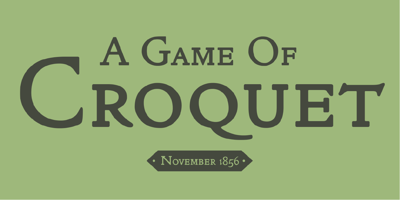
HV Simplicite Font is perfect for minimalist branding projects, clean web design interfaces, modern packaging solutions, contemporary corporate communications, simplified logo designs, editorial layouts, digital applications, and streamlined marketing materials. This elegant typeface excels in applications requiring clarity, simplicity, and sophisticated aesthetic appeal without unnecessary complexity.
What makes HV Simplicite Font exciting is its masterful embodiment of "less is more" philosophy that achieves maximum impact through refined simplicity and intelligent design reduction. The font features perfectly balanced letterforms with clean lines and optimal spacing that create effortless readability while delivering distinctive character for brands embracing minimalist design principles.
The HV Simplicite Font family includes essential weight variations from light to bold, plus clean italic styles, offering designers focused tools for creating coherent minimalist typography systems. The family provides consistent simplicity with strategic weight differences for effective hierarchy while maintaining the pure aesthetic that defines contemporary minimalist design approaches.
HV Simplicite Font Free Download offers designers access to premium minimalist typography that perfectly captures current design trends toward simplification and clarity. Whether you're creating modern brand identities, clean digital interfaces, contemporary publications, or streamlined marketing campaigns, this font provides the refined simplicity needed for sophisticated minimalist design solutions.
The precisely refined letterforms of HV Simplicite Font ensure optimal legibility across all platforms while maintaining pure aesthetic appeal, making it ideal for responsive web typography, mobile interfaces, and contemporary print applications. This versatile typeface combines minimalist philosophy with modern technical standards for outstanding performance in design environments requiring elegant simplicity and functional beauty.